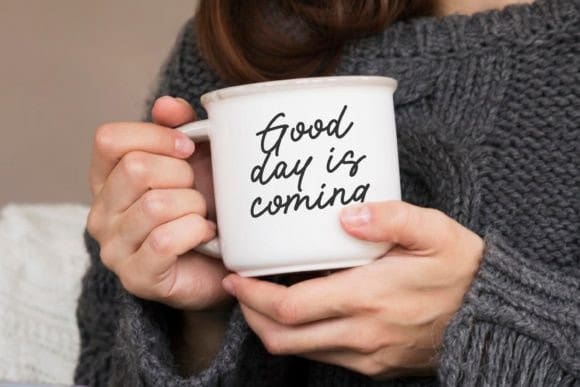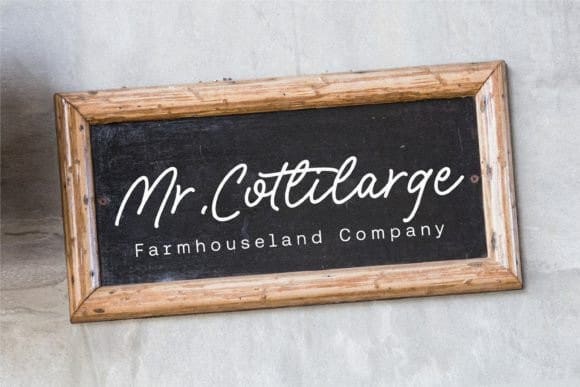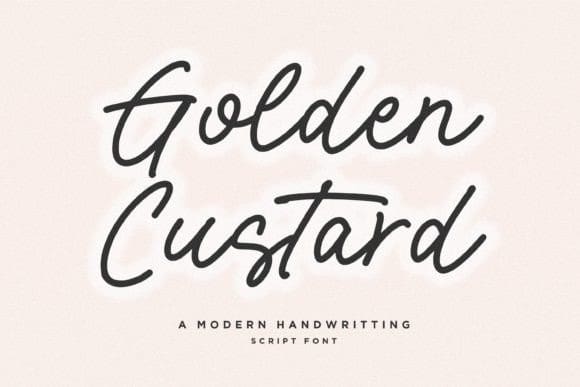
Golden Custard Font
Golden Custard Font is a dazzling script font that epitomizes elegance and charm. Its graceful flourishes and intricate details captivate the eye, making it perfect for wedding invitations, branding, and signage. With its timeless appeal and delicate curves, GoldenCustard adds a touch of sophistication to any design project.